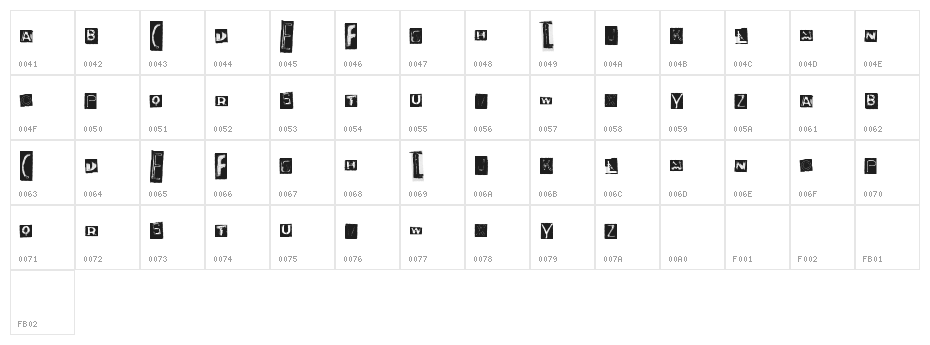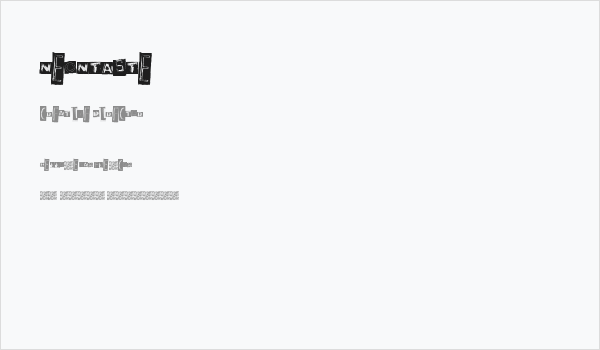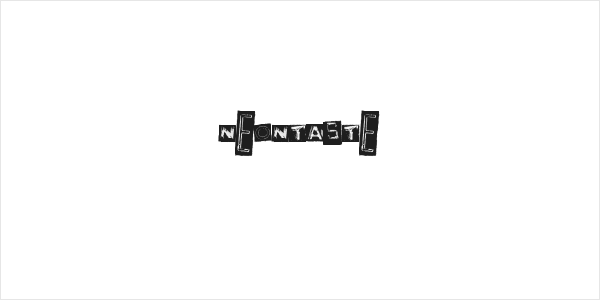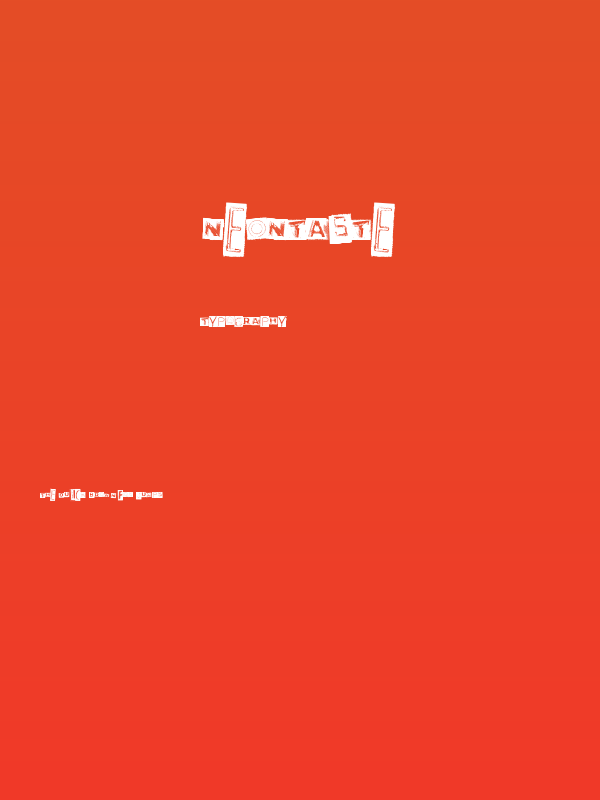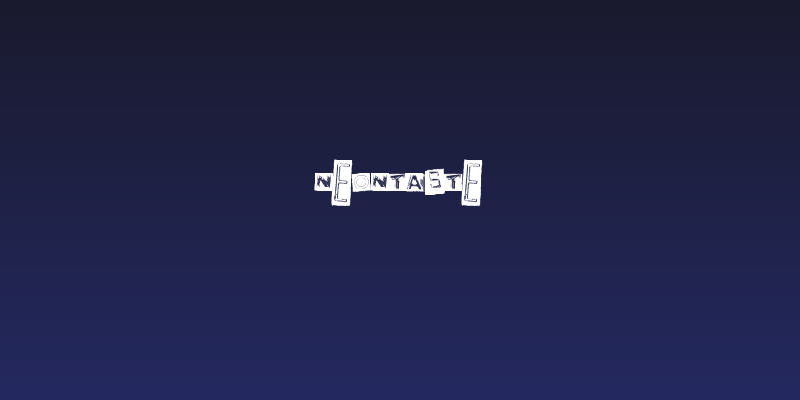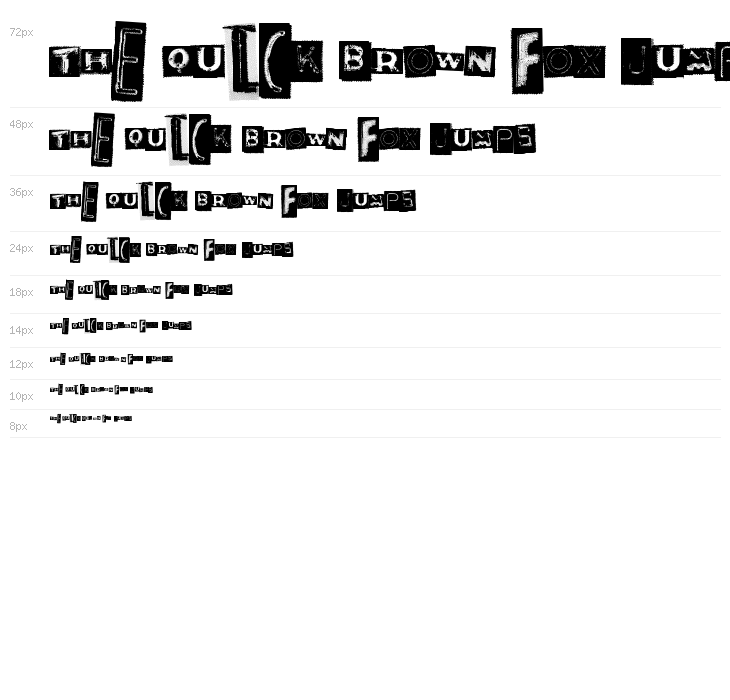
NeonTaste Font
NeonTaste Description
This font features a playful and eclectic style, reminiscent of cut-out magazine letters. Each character is uniquely designed, with varying thickness and angles, creating a dynamic and eye-catching appearance. The letters are bold and have a slightly distressed texture, adding to their quirky and artistic charm. The overall design is highly decorative, making it suitable for projects that require a fun and unconventional look. The font's irregular shapes and bold presence make it stand out, perfect for creative and artistic applications.
| Proposed Projects | Ideal for creative projects such as posters, album covers, event flyers, and artistic branding. |